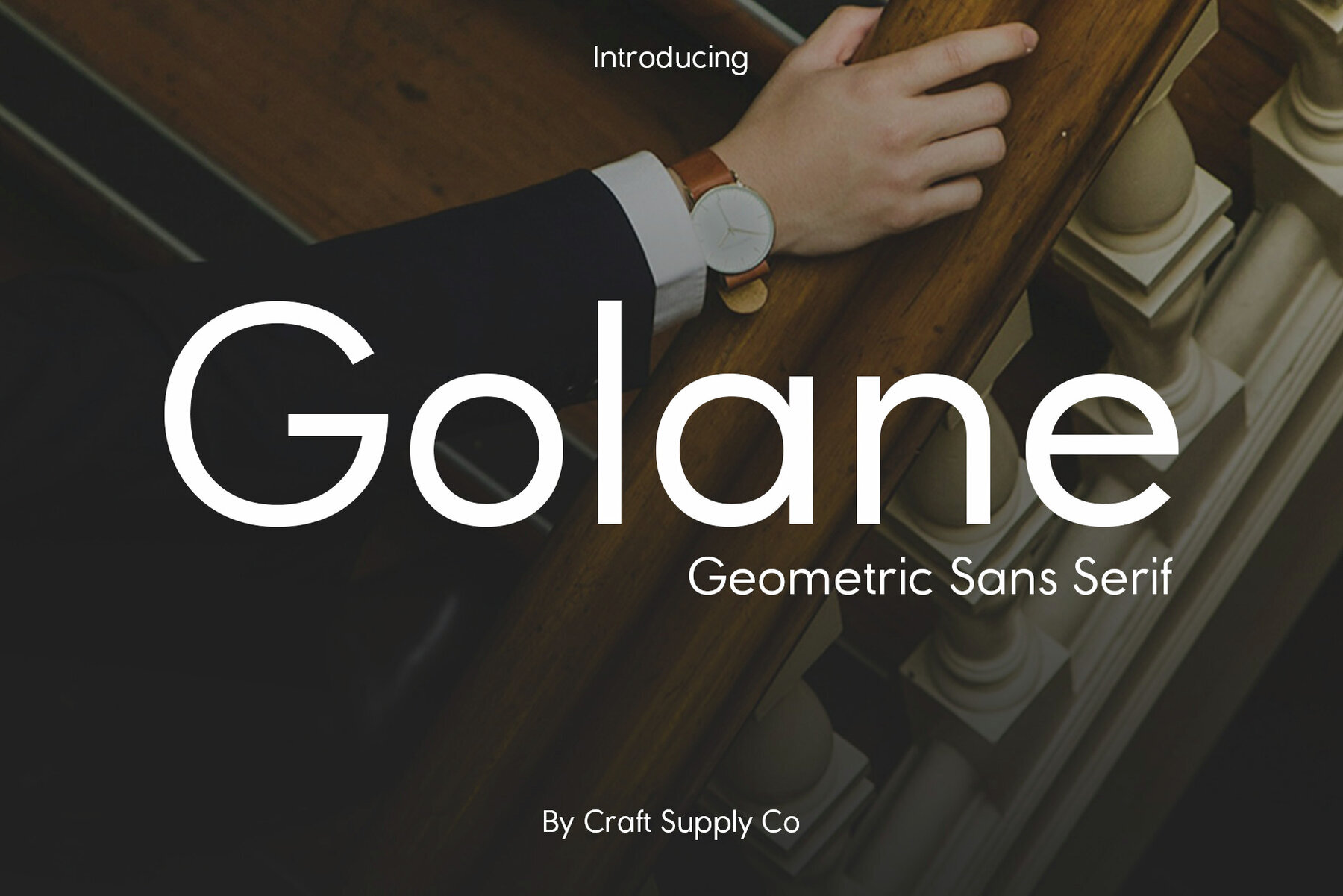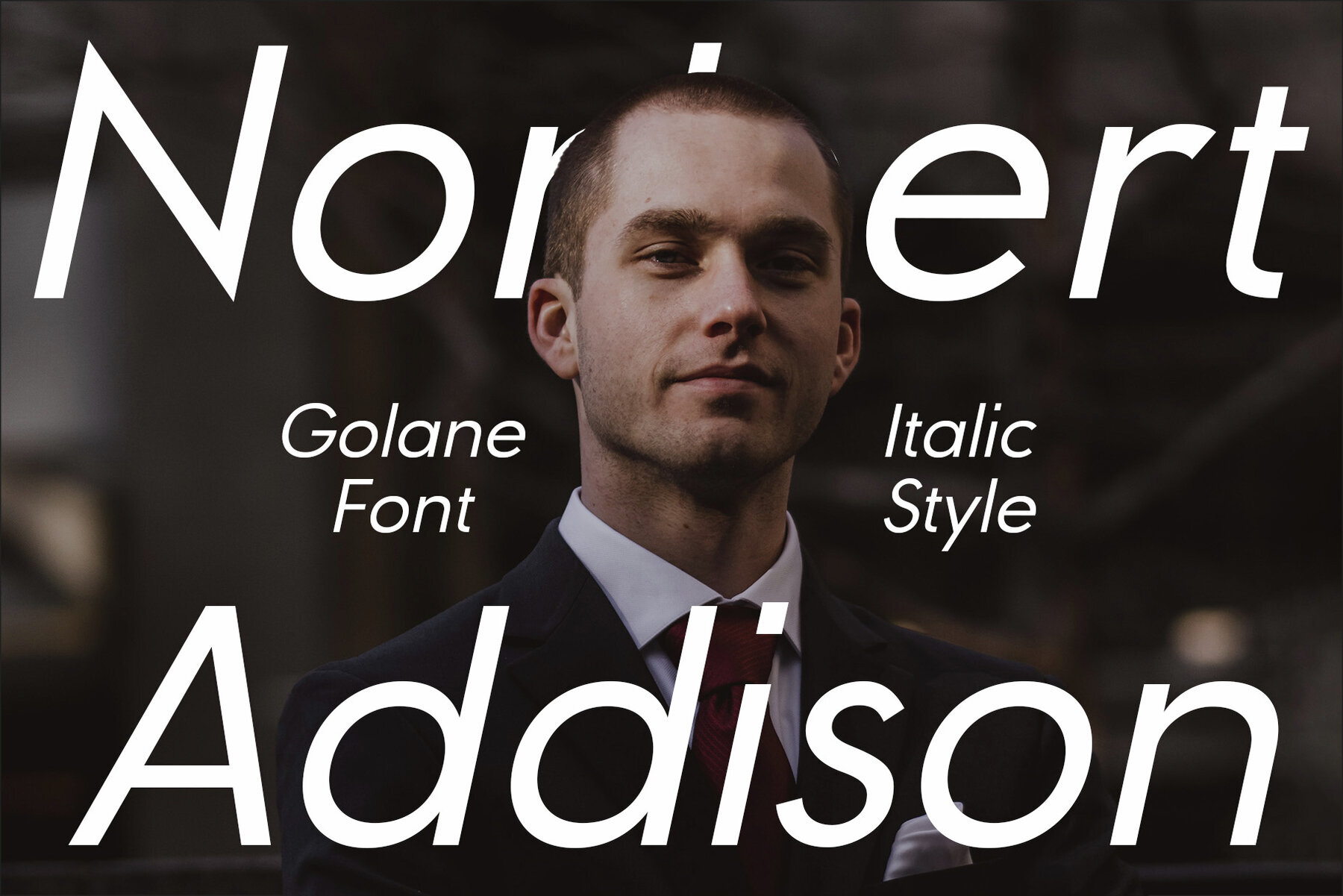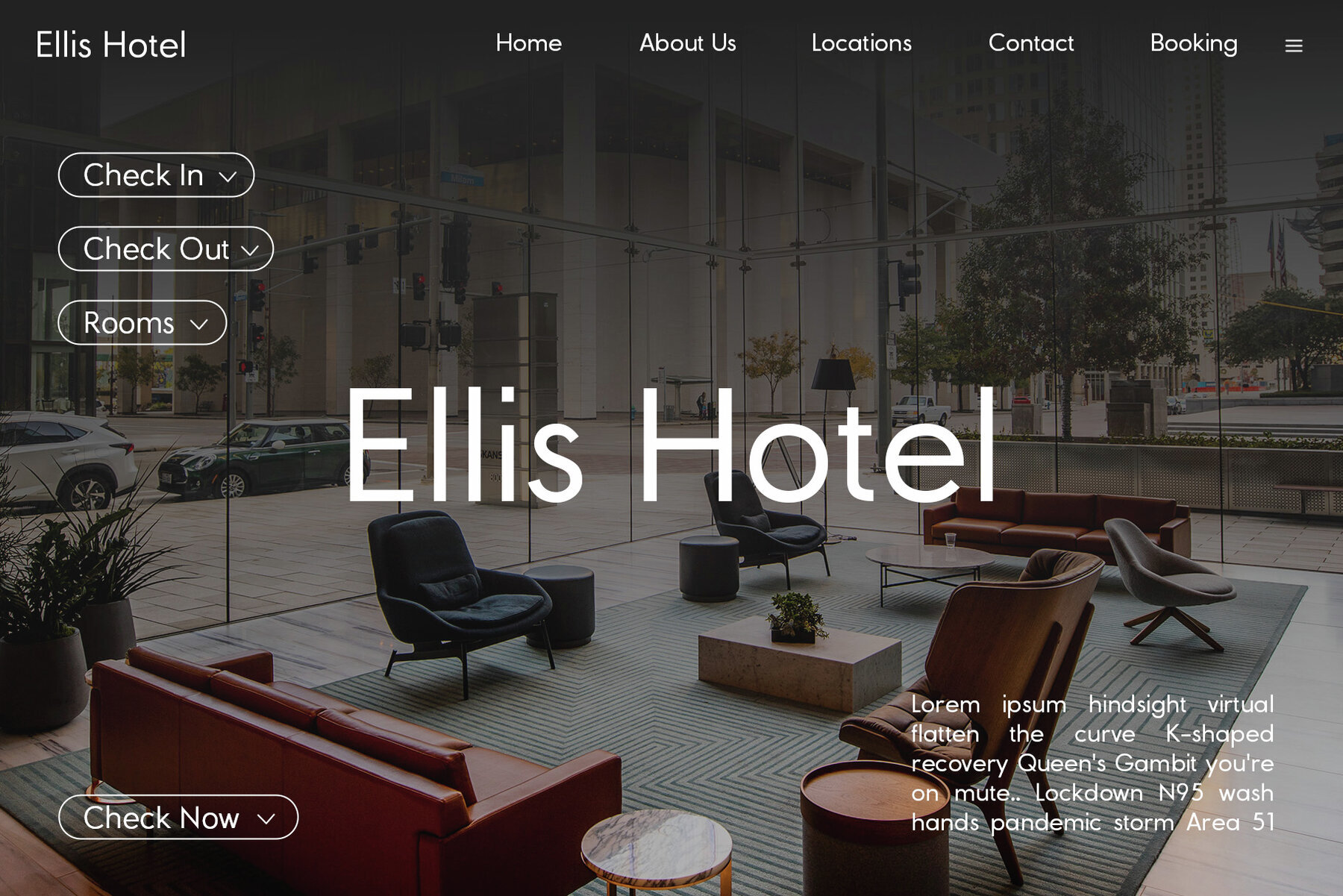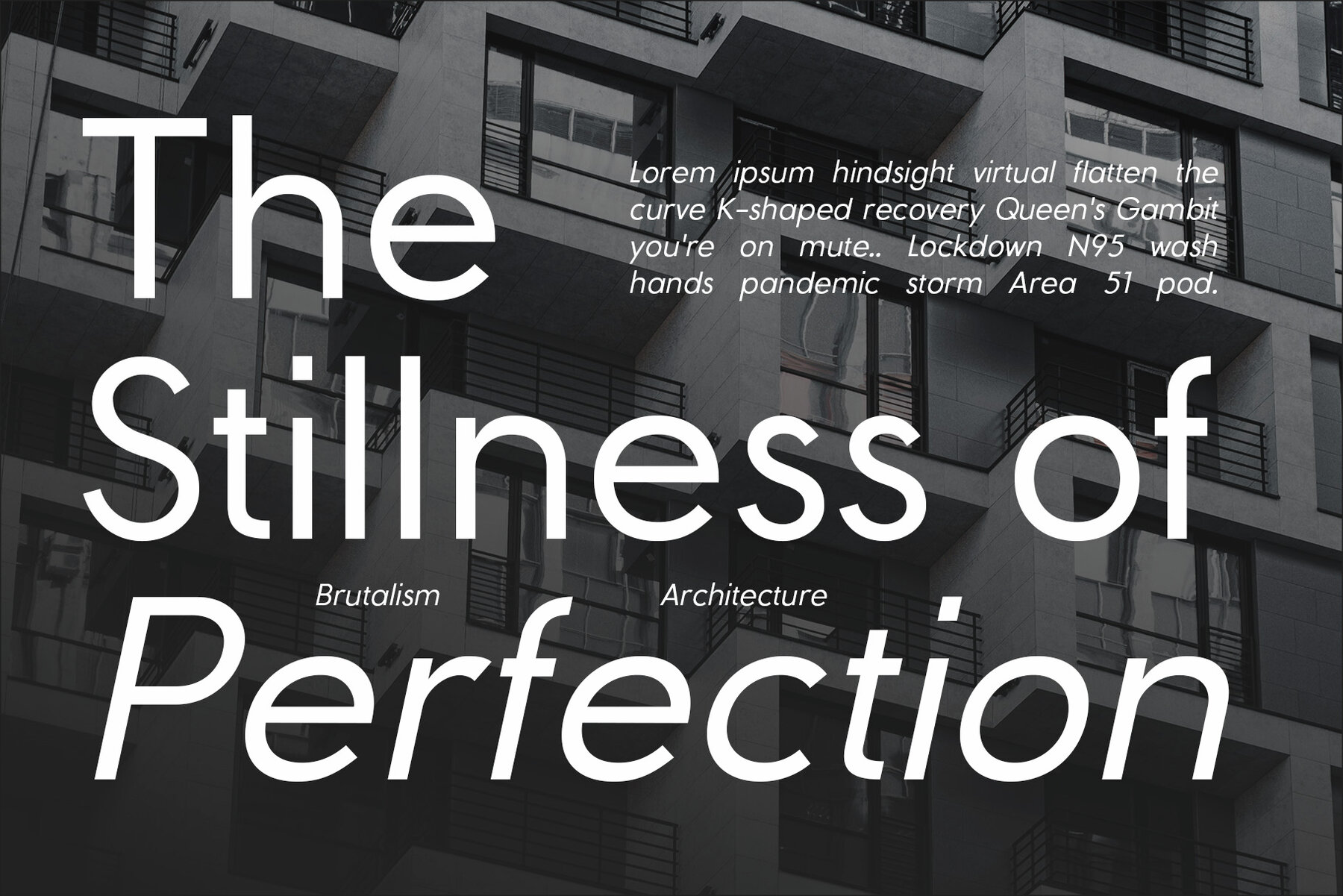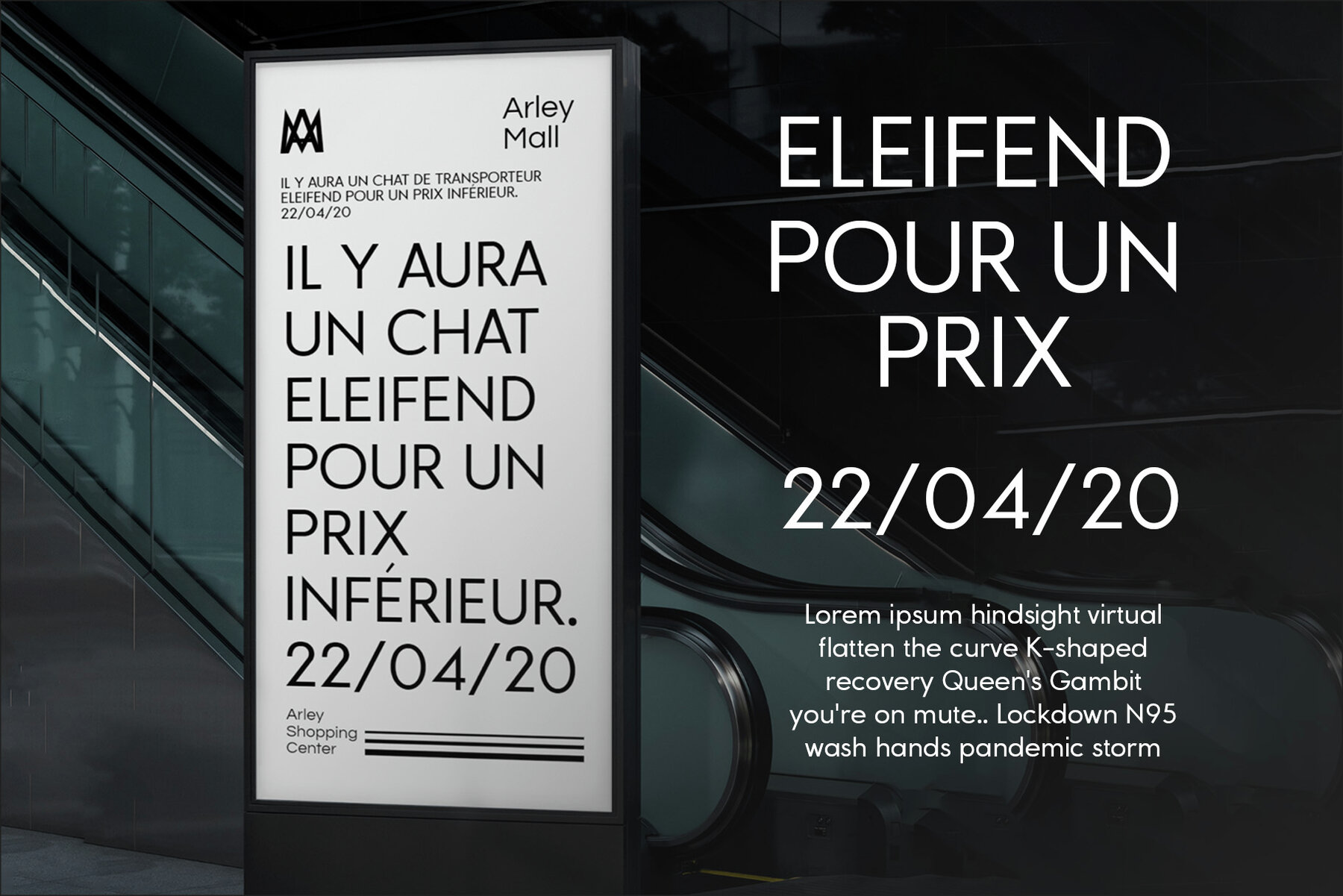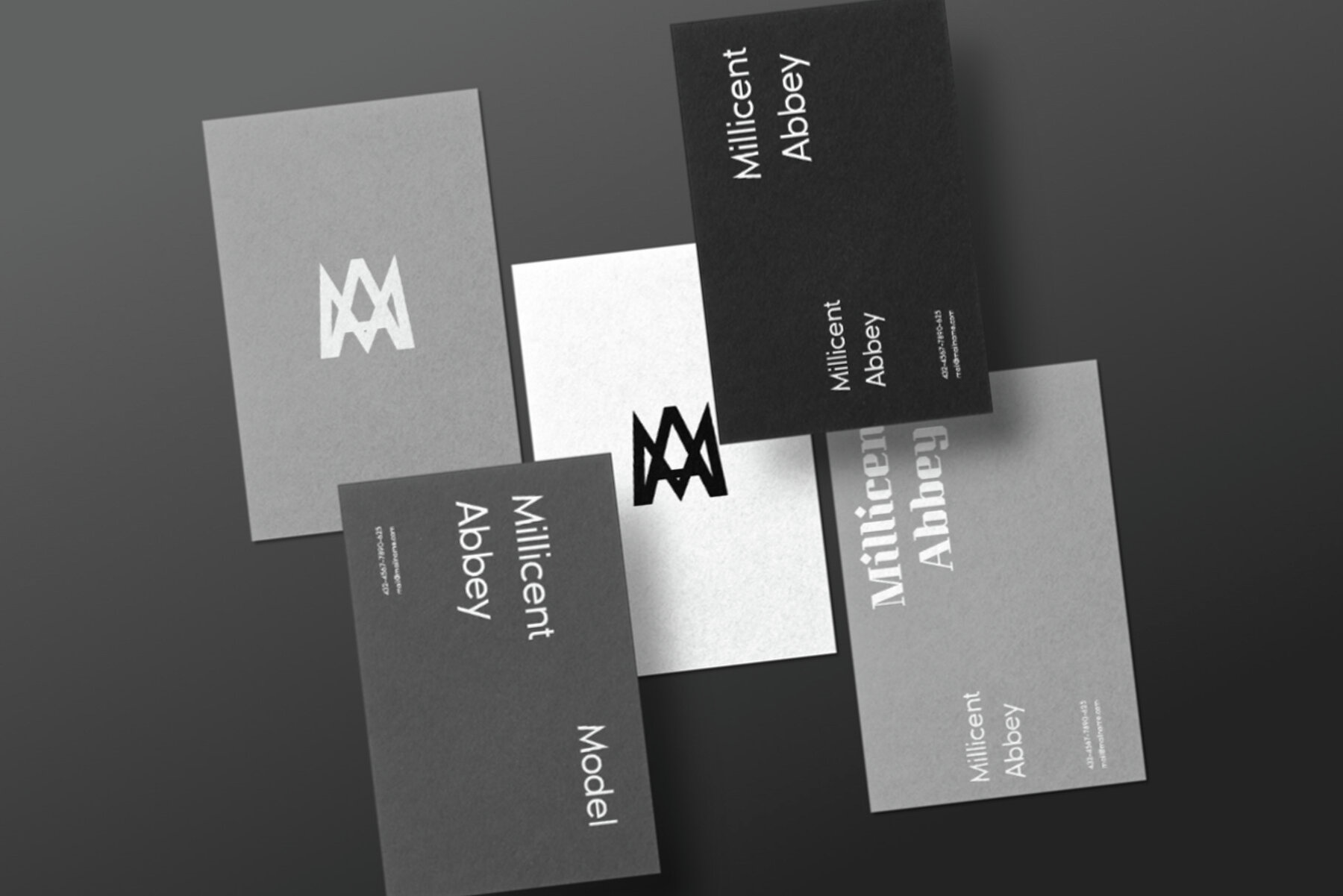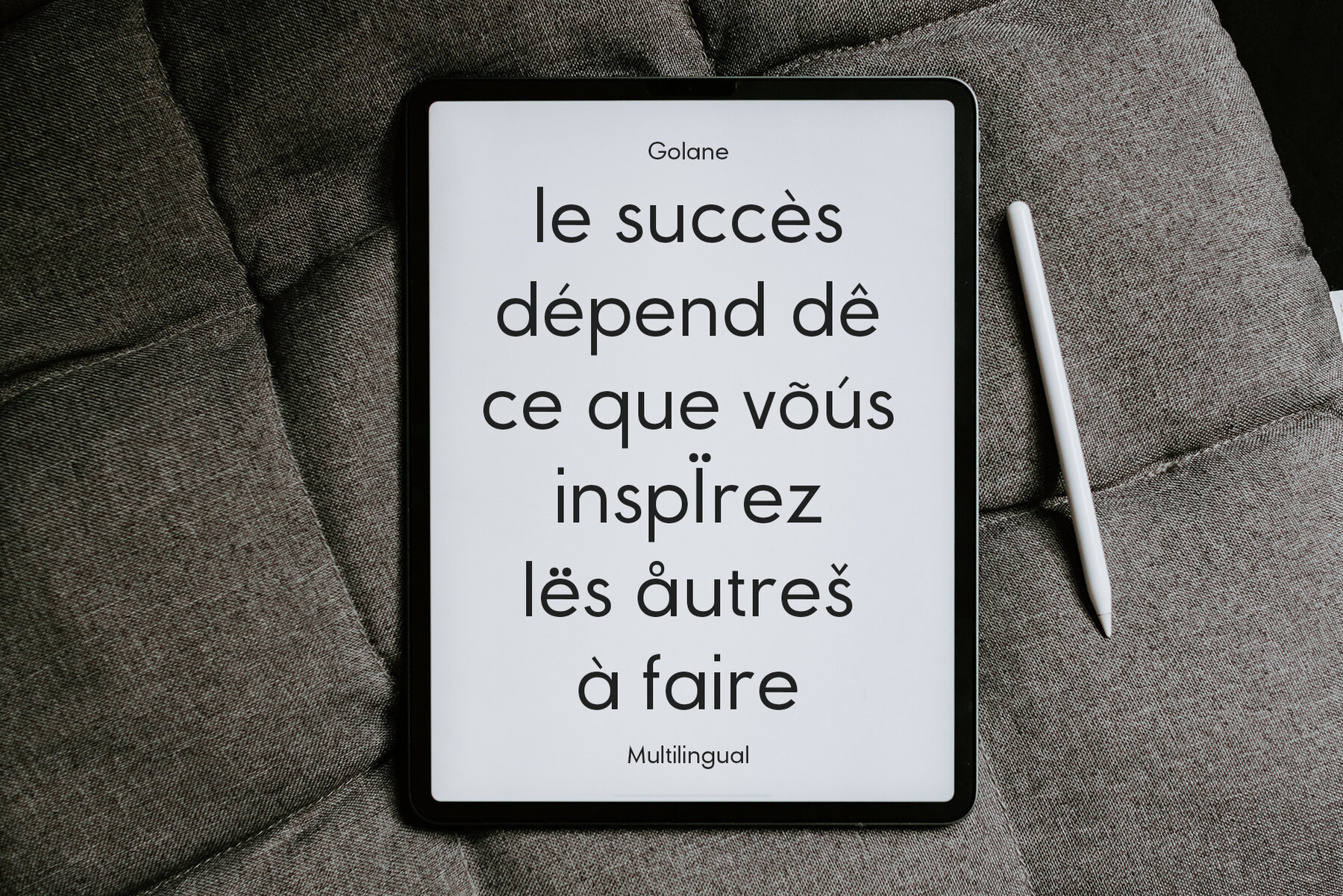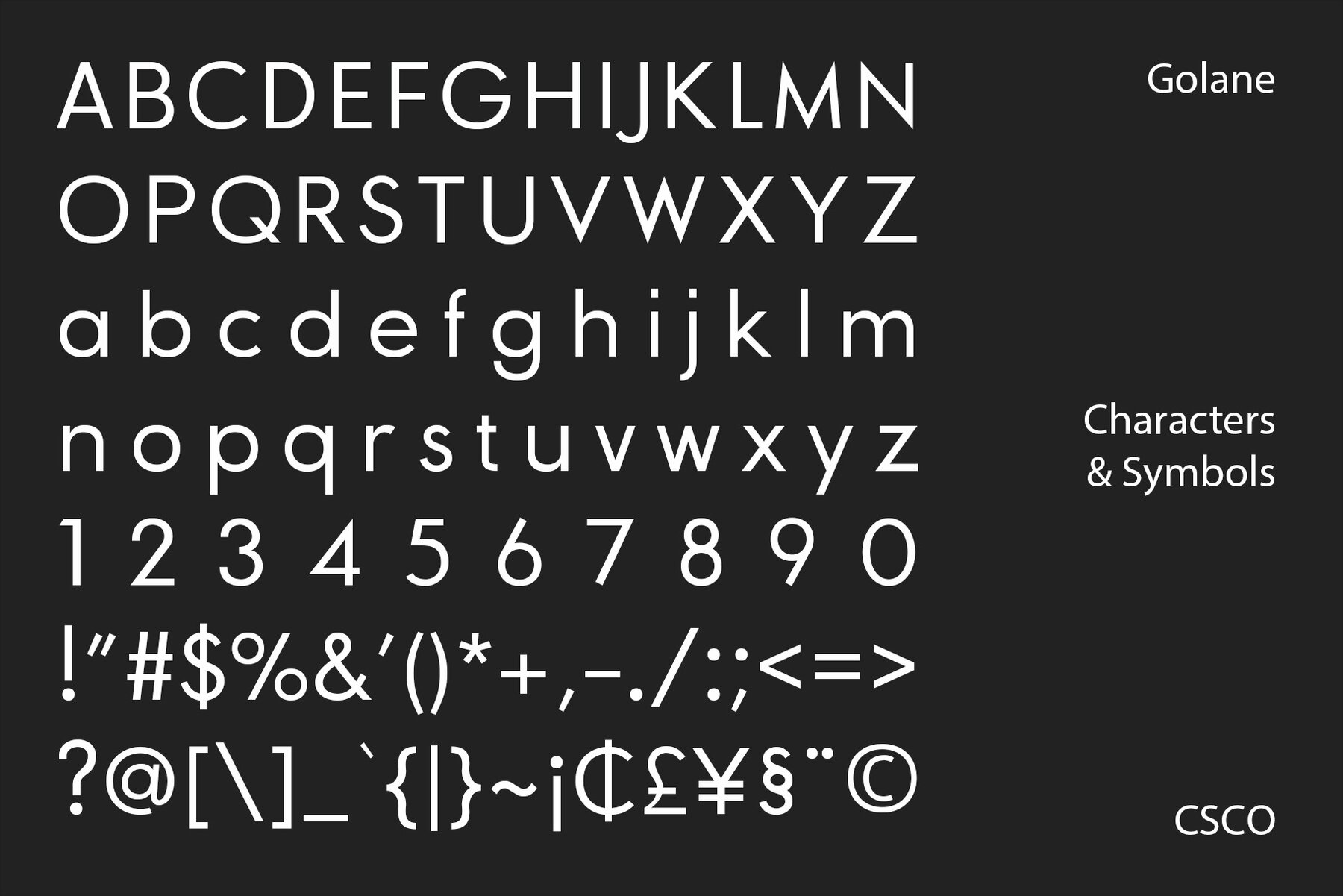
Golane Font
Introducing Golane, a Geometric Sans Serif font, it exemplifies a sleek, modern design. Firstly, its geometric styling enhances visual appeal. Importantly, this font is perfect for lengthy texts, offering remarkable readability. Additionally, its simplicity appeals to a broad audience, from novices to seasoned professionals. Focusing on design, Golane is deeply rooted in geometric principles. Each character is meticulously crafted, ensuring a balanced and harmonious appearance. Furthermore, its clean lines and shapes exude a contemporary vibe. Consequently, the font masterfully combines form and function, making it highly versatile for diverse applications. Regarding user experience, Golane stands out for its user-friendly qualities. It’s notably easy to read, which greatly enhances the legibility of extended texts. Moreover, the font’s adaptability is evident, as it fits seamlessly in various contexts. Whether used in print or digital formats, Golane consistently maintains its clarity and effectiveness. Lastly, the versatility of Golane is a key attribute. It’s suitable for a wide range of projects. Specifically, its modern charm is ideal for branding, web design, and editorial tasks. In addition, the font can be utilized in both professional and casual settings, solidifying it as a top choice for diverse design requirements. Golane Geometric Sans Serif Font is a geometric sans serif font that skillfully merges aesthetic appeal with practicality. Its design is accessible and user-friendly, making it an outstanding selection for a variety of design projects.Introduction to Golane
Design and Aesthetics
User-Friendly Features
Versatility and Applications